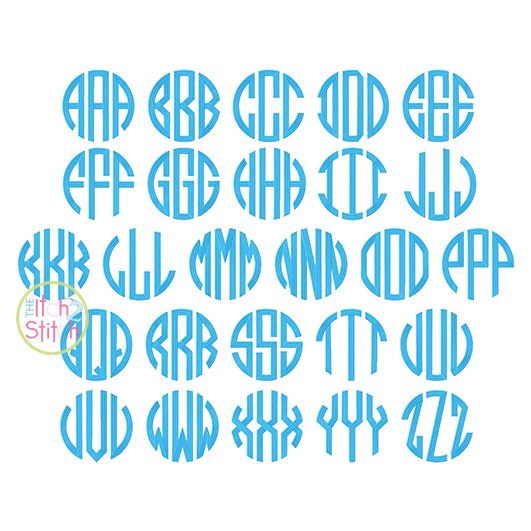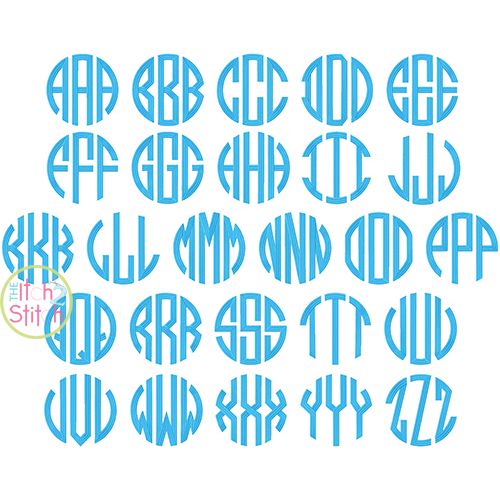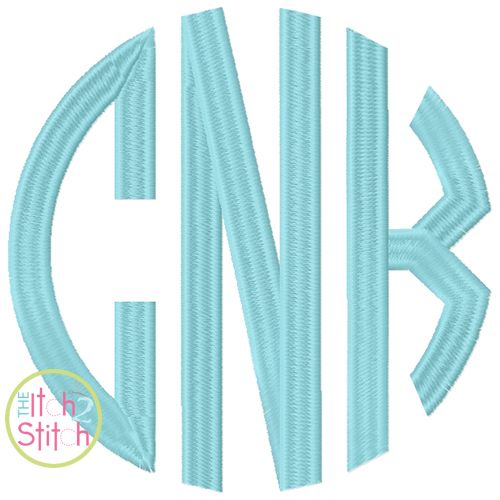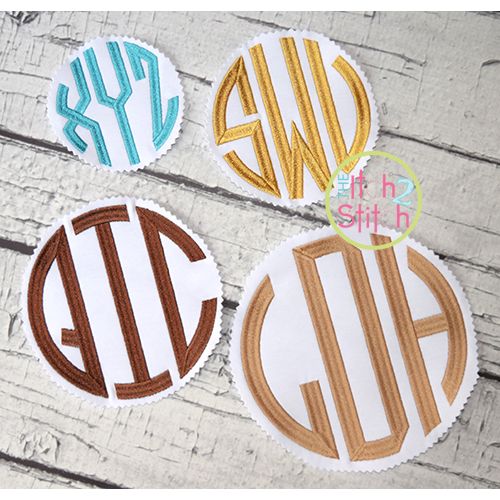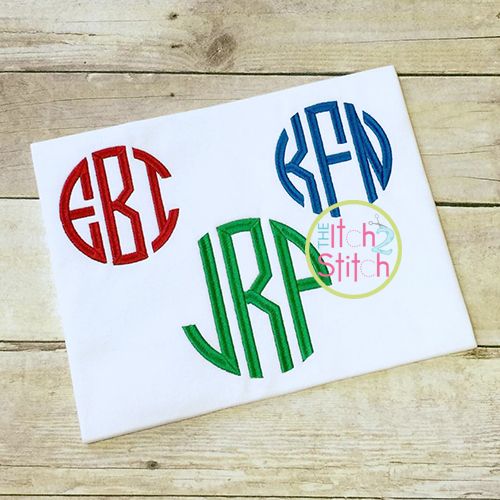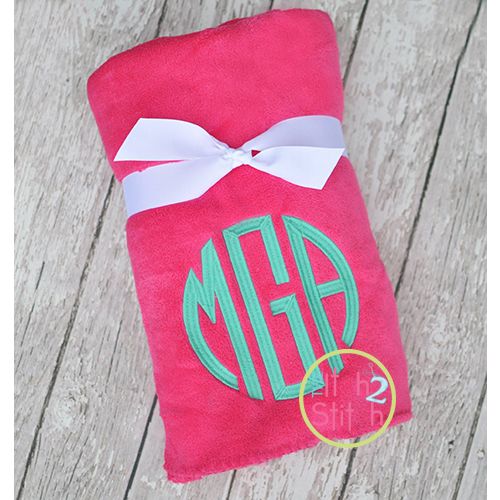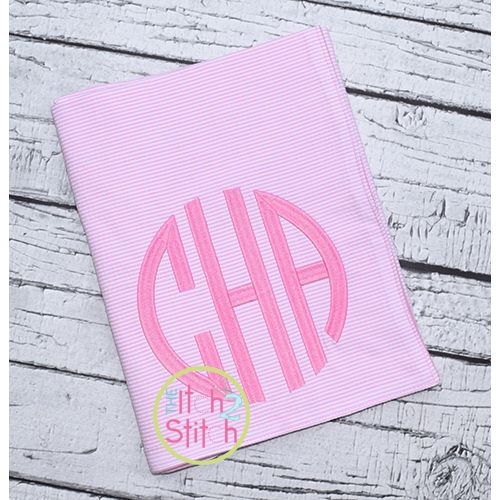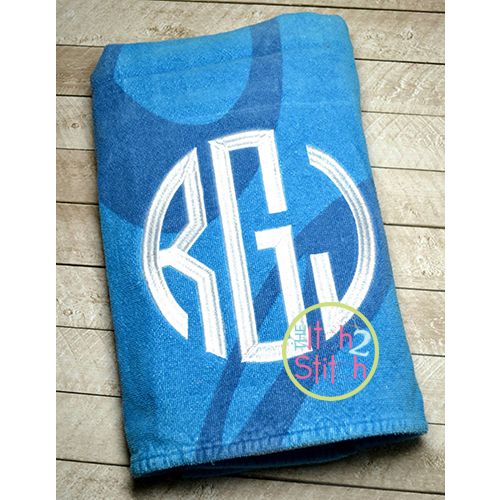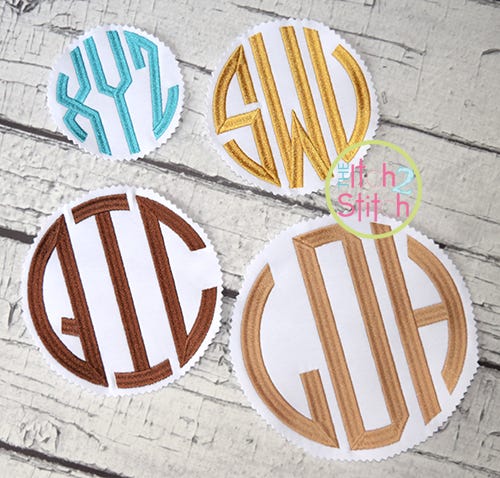
You will receive all left/middle/right A-Z letters and a letter-placing template (79 files) in five sizes.Ā The 3.5" size fits in a 4x4 hoop but all other sizes require a larger hoop. This style of lettering features a split satin stitch for all sizes.